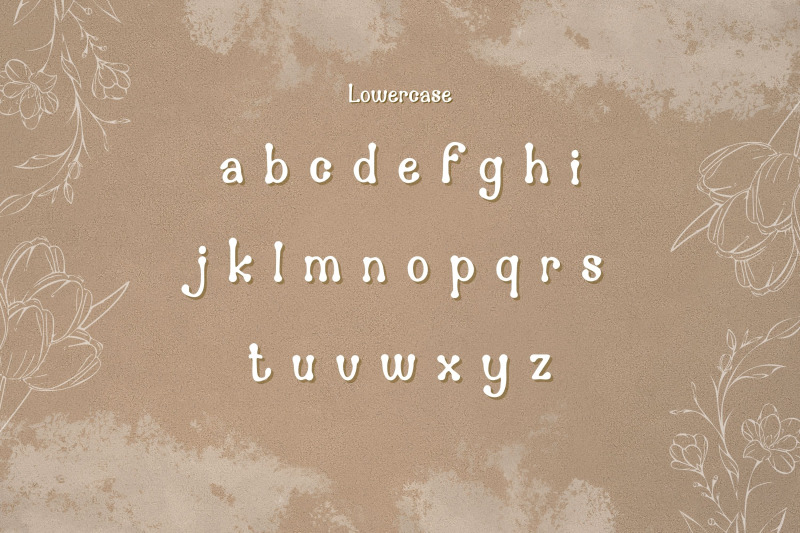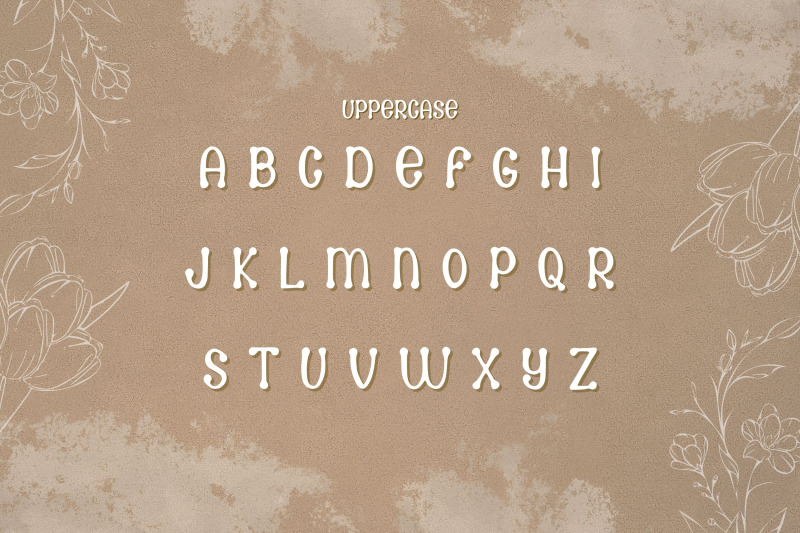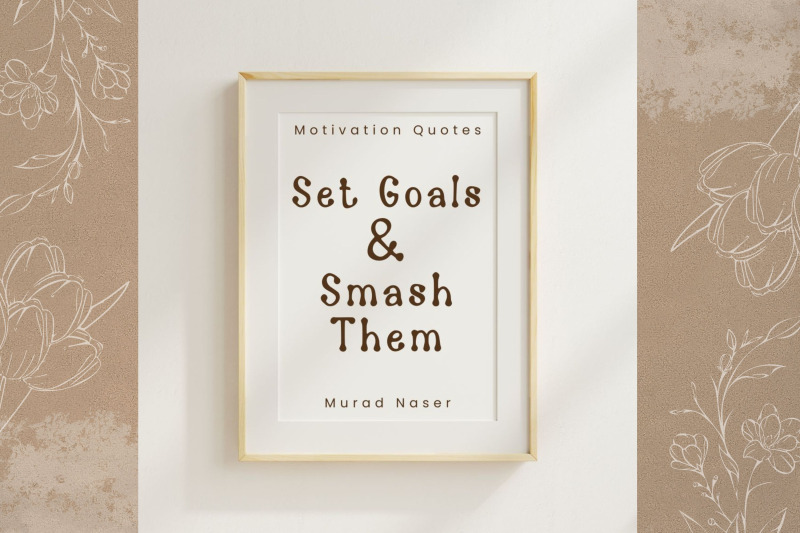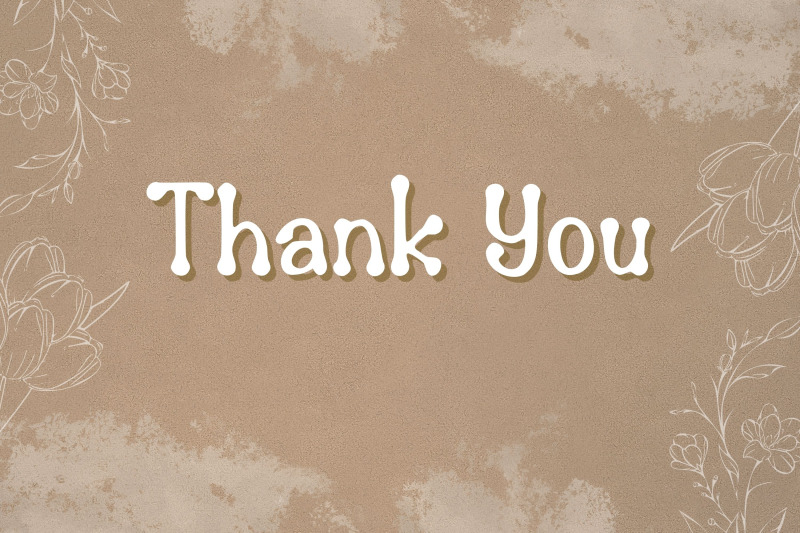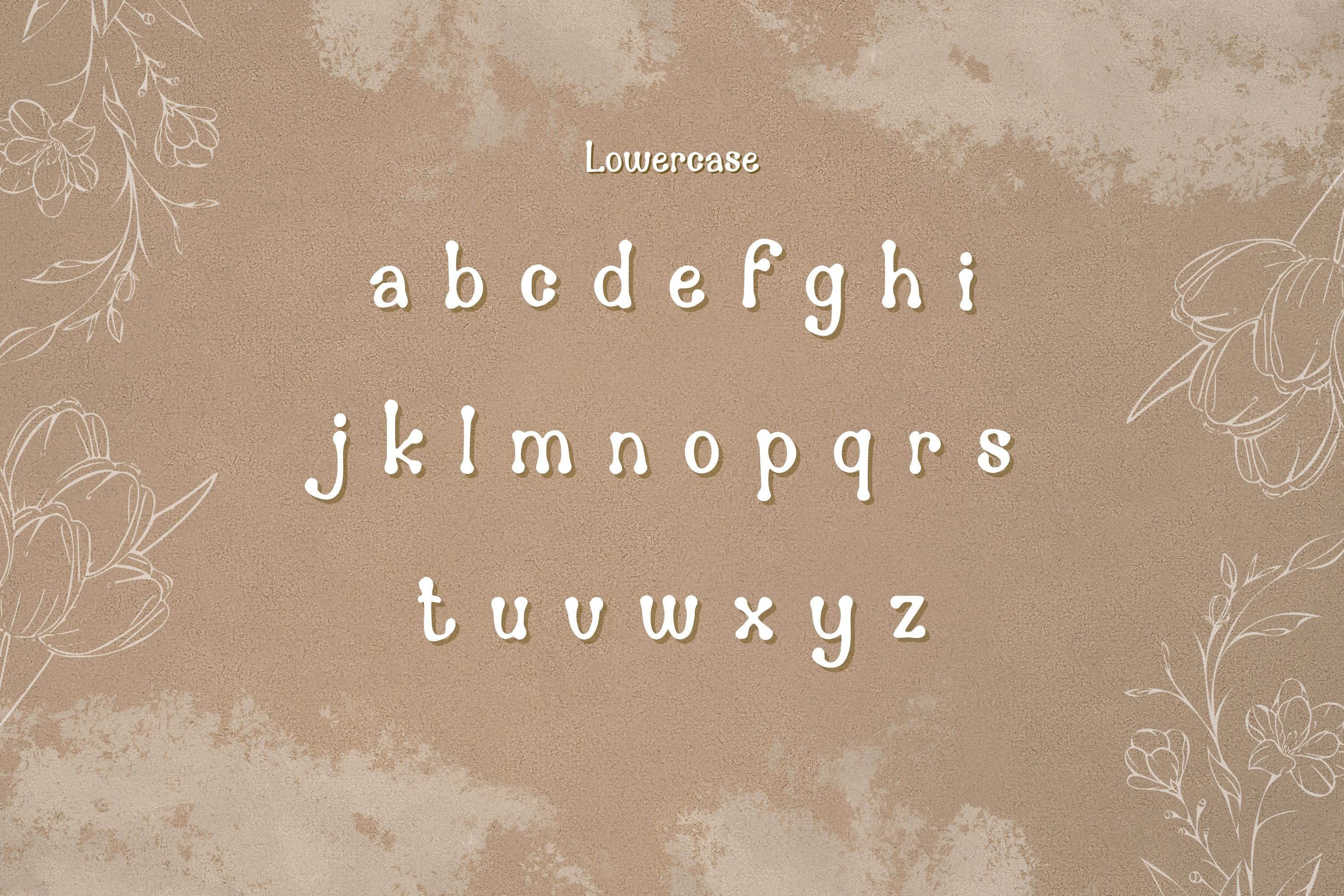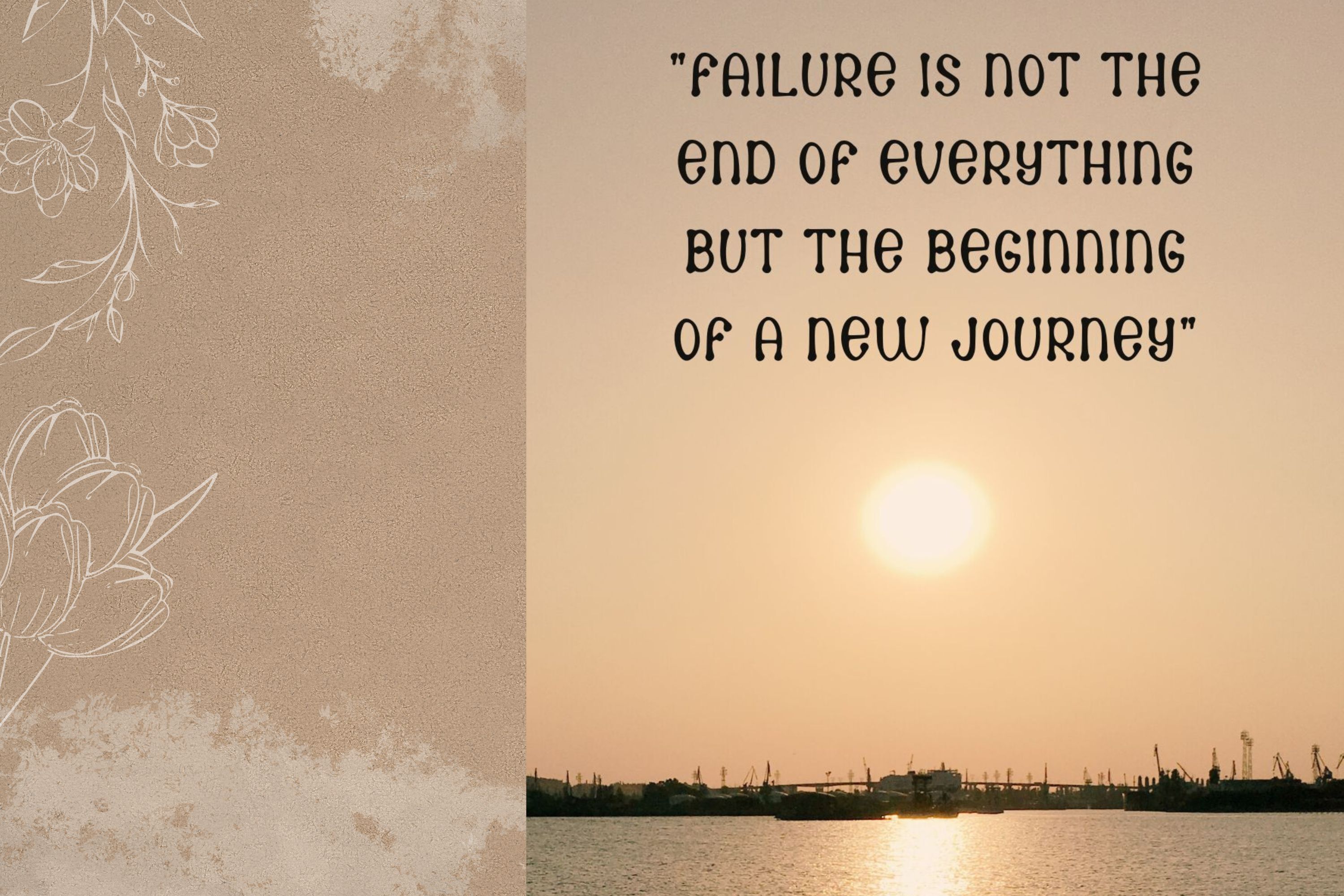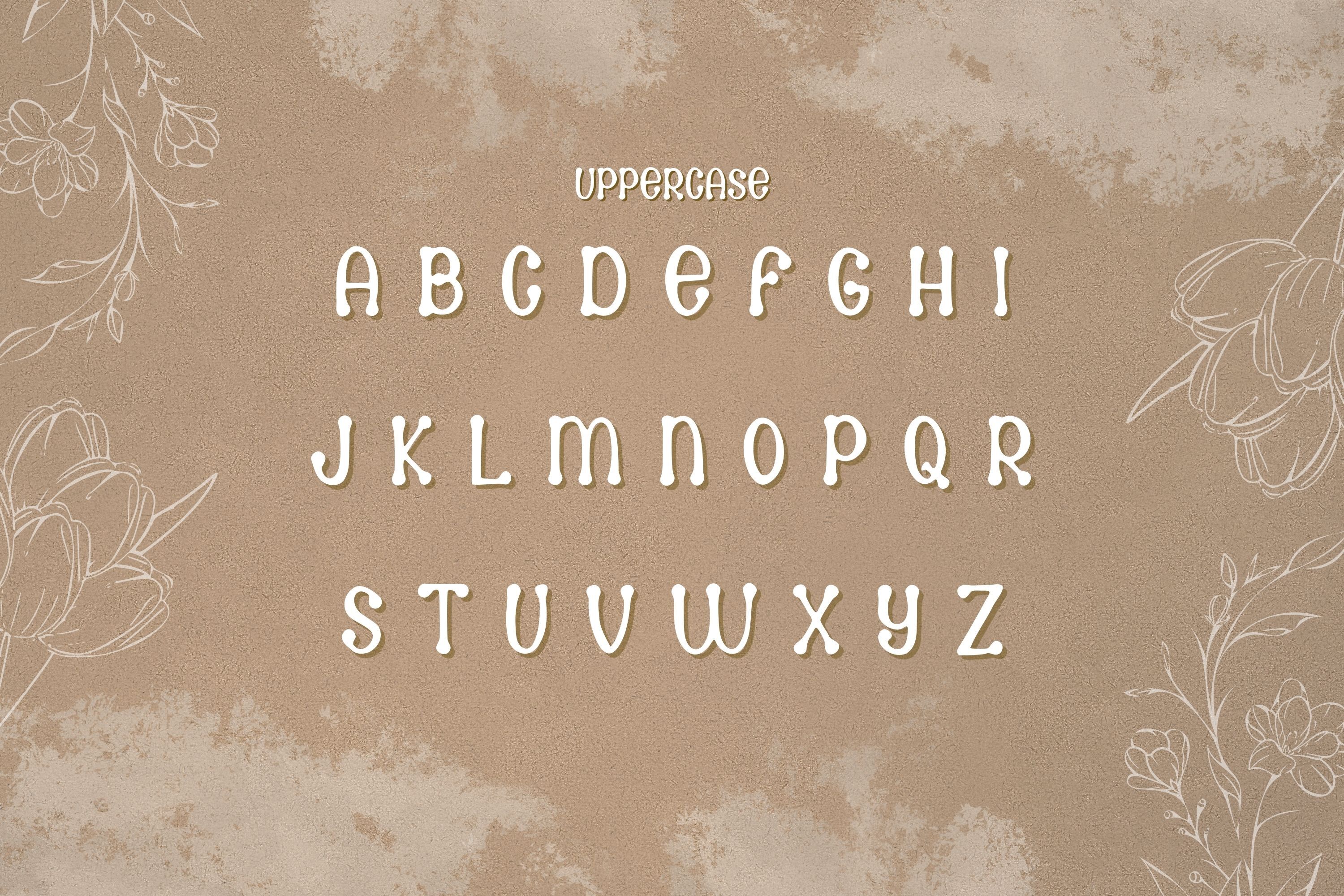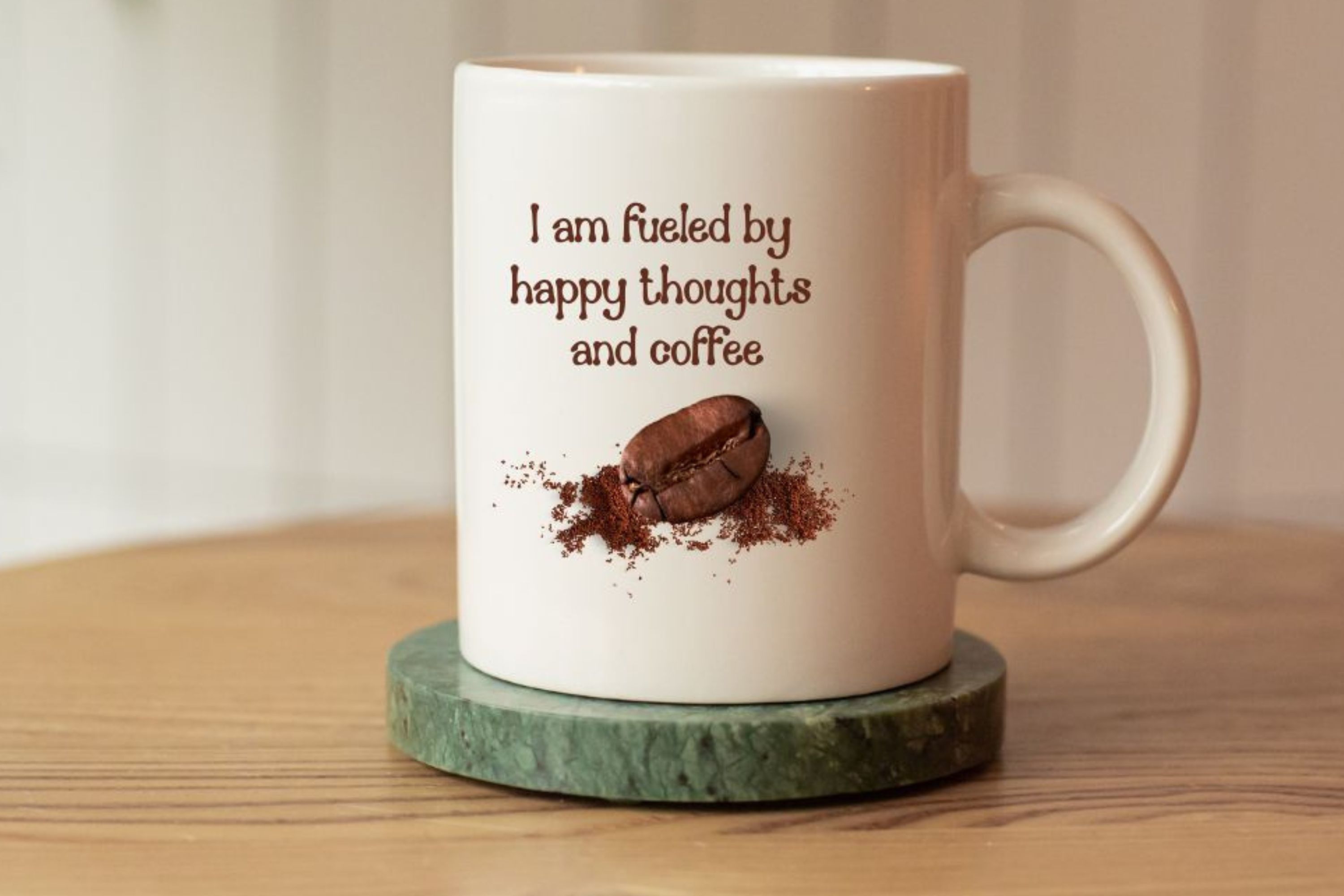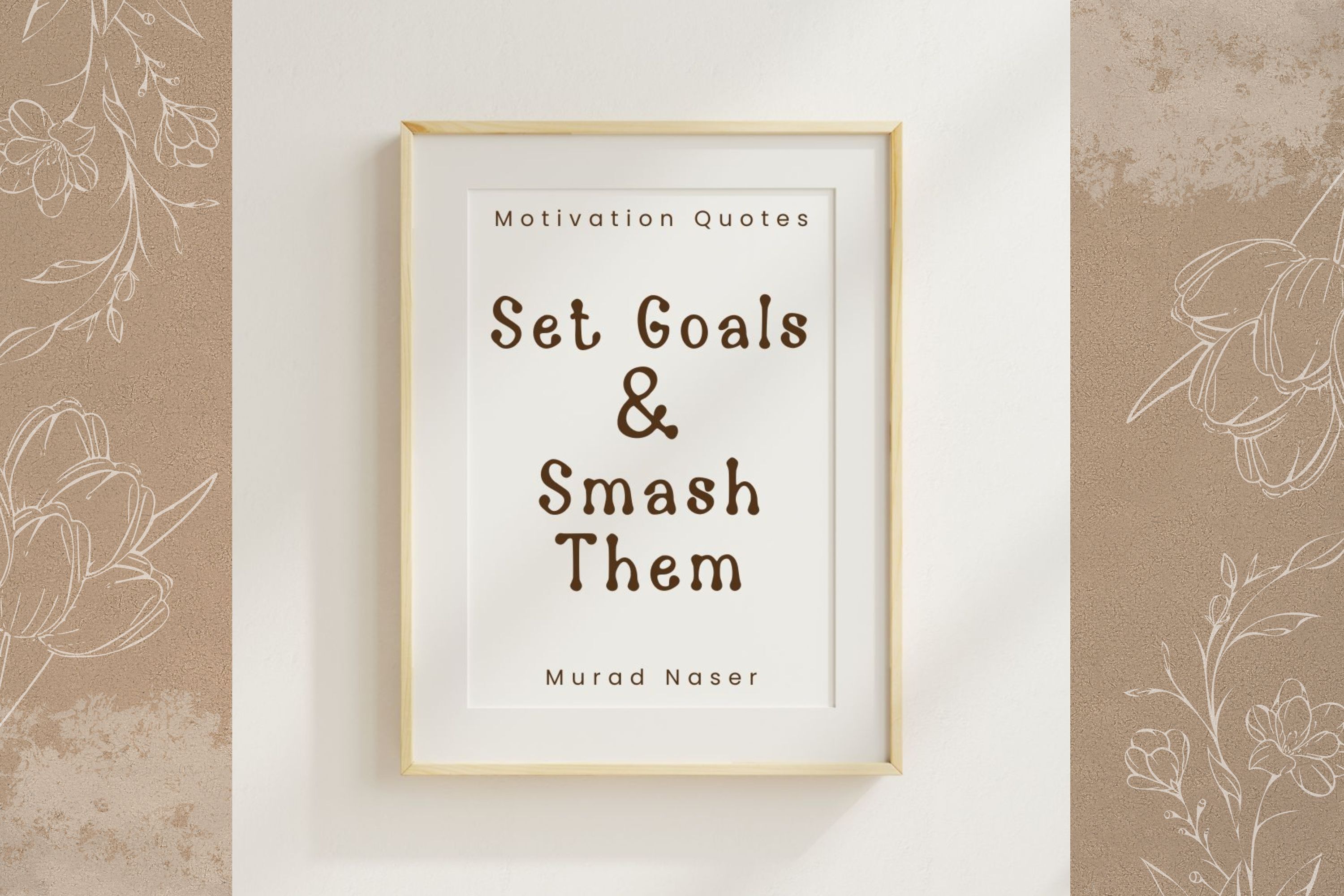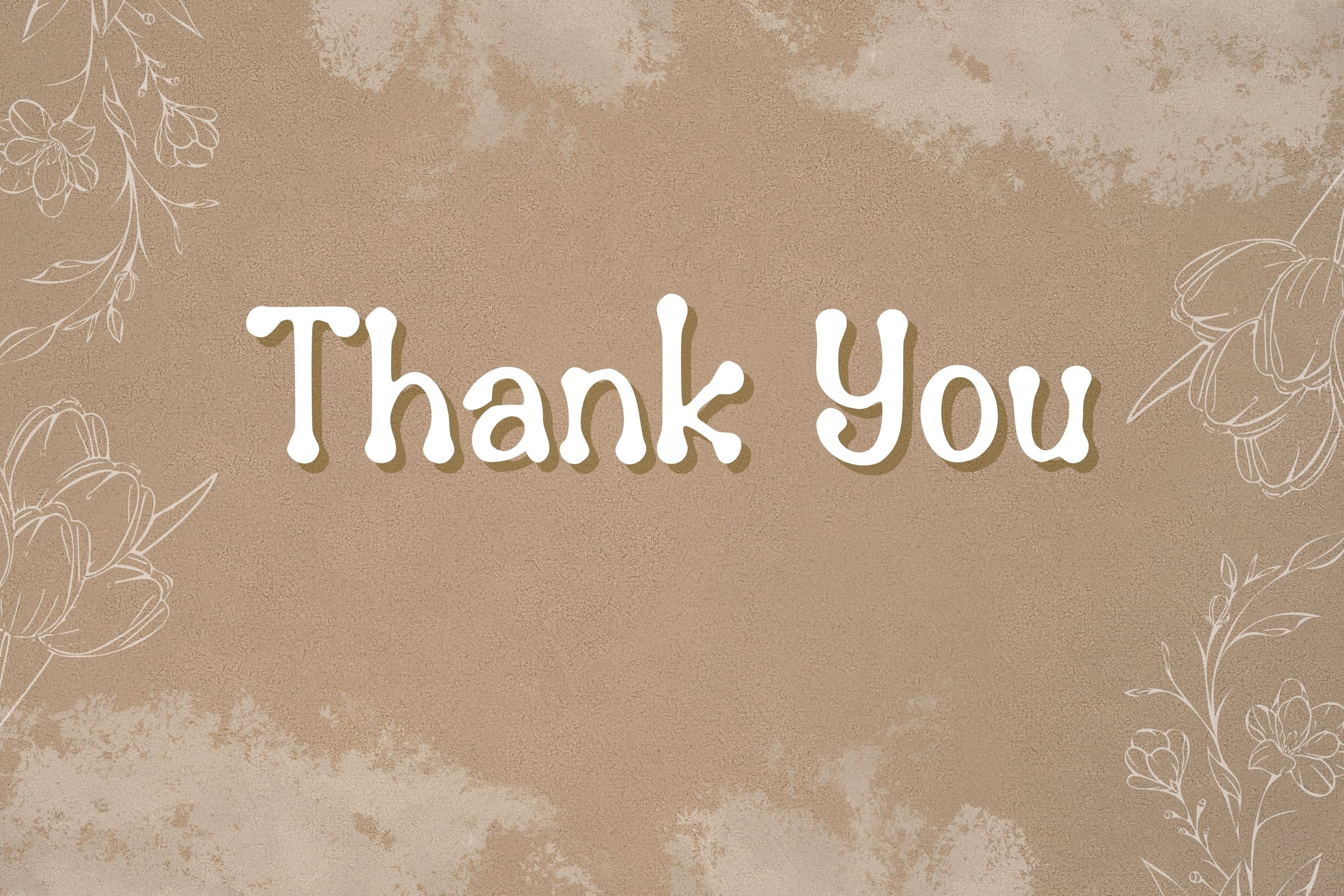
Antonika Playful Decorative Font for Kids Projects
Antonika is a playful and decorative font with a whimsical charm. Its fun, bouncy style makes it perfect for children’s books, posters, invitations, product packaging, logos, and DIY projects. Add a creative, unique touch to your designs with Antonika and let your ideas stand out.